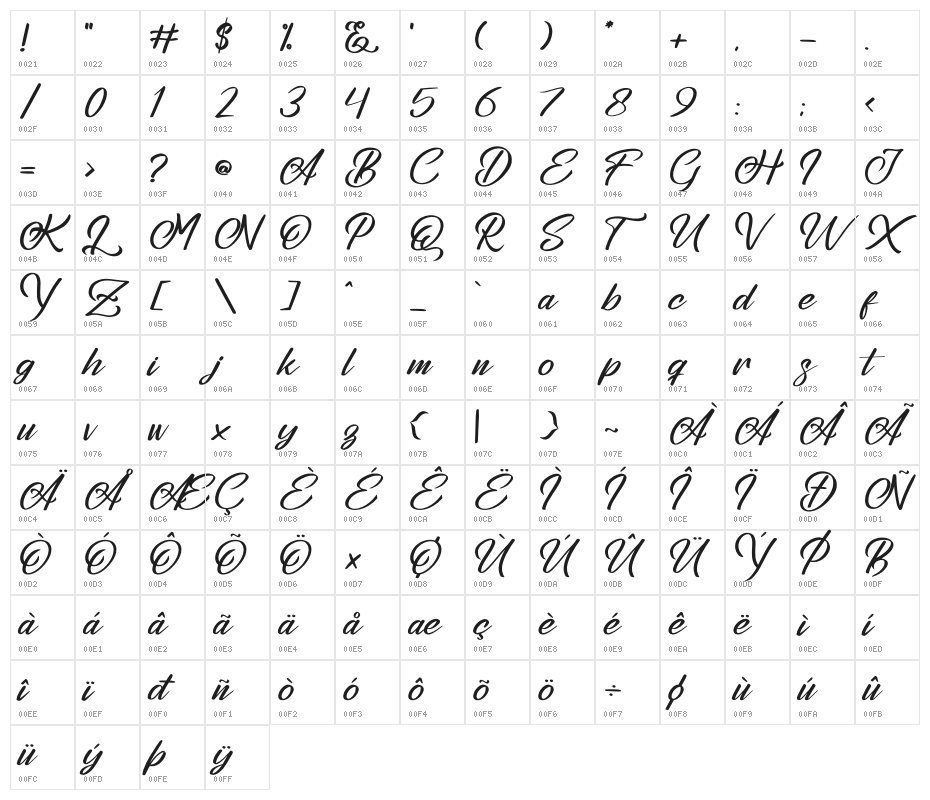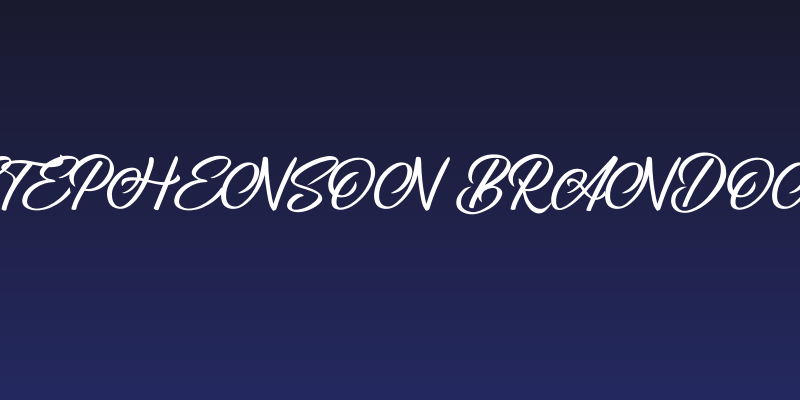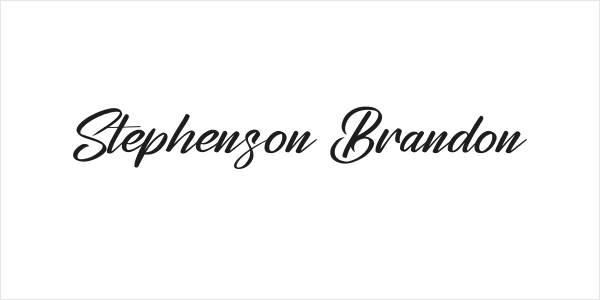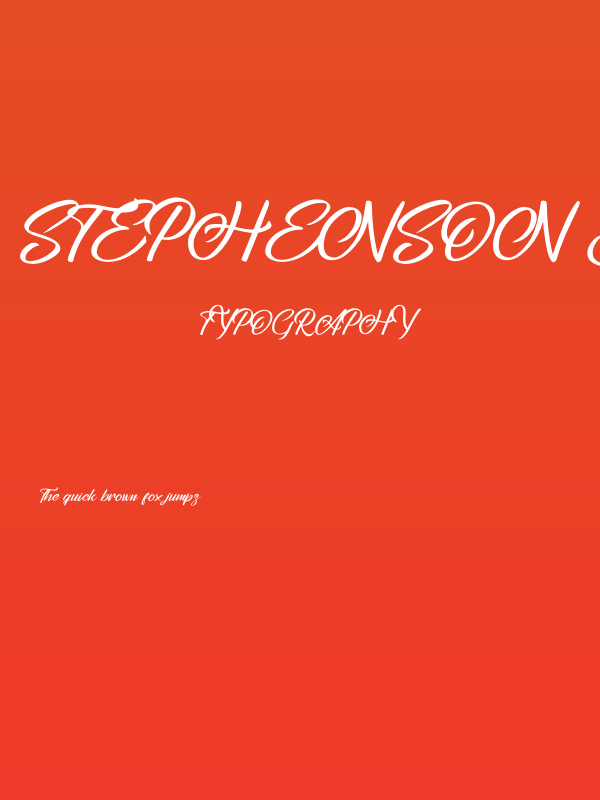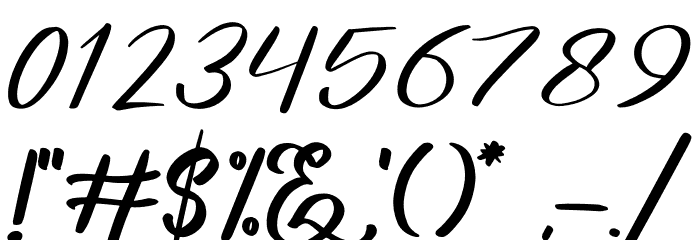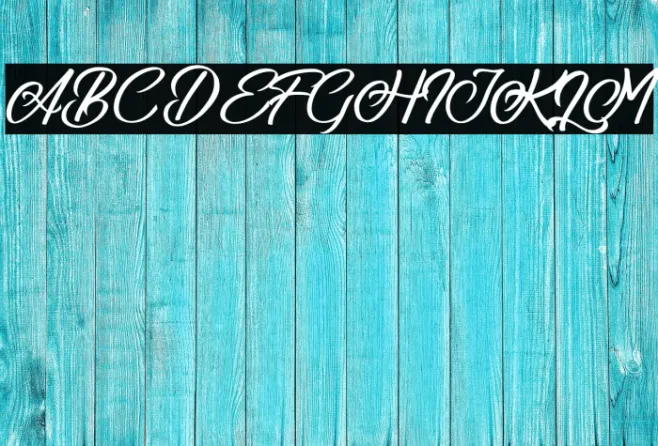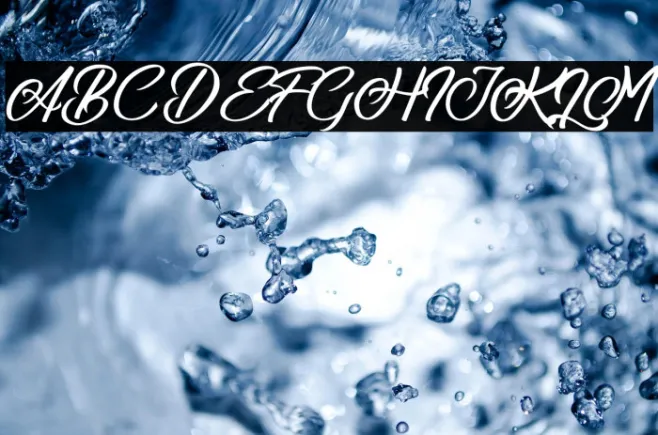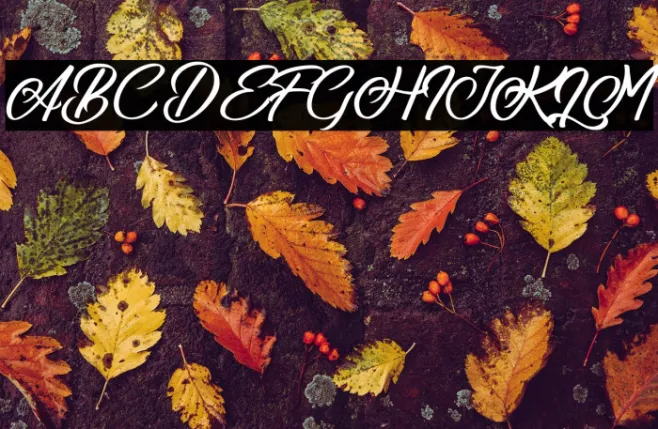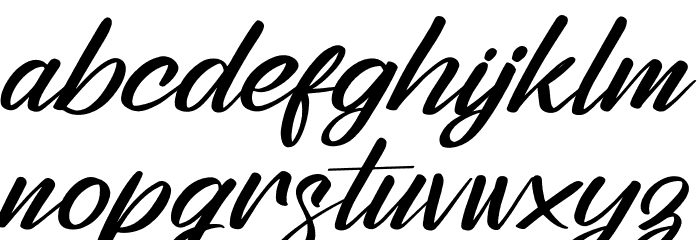
Stephenson Brandon Font
Stephenson Brandon Description
This font features a dynamic and flowing script style, characterized by its elegant and fluid strokes. The uppercase letters exhibit a graceful cursive form, with smooth transitions and a slight slant, giving a sense of movement and sophistication. The lowercase letters maintain a consistent style, with rounded edges and a harmonious flow that complements the uppercase characters. The numerals are designed with a similar flair, ensuring readability while maintaining the overall aesthetic. Special characters are thoughtfully integrated, enhancing the font's versatility. This script font is ideal for projects that require a touch of elegance and personality.